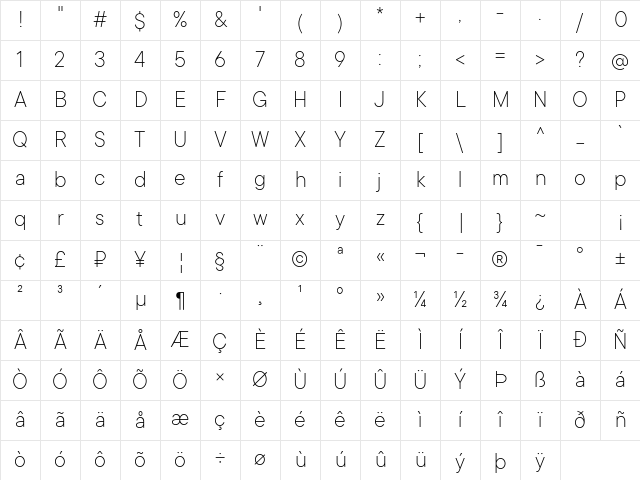
TT Commons ExtraLight Regular Free Font
TT Commons ExtraLight Regular
Designer: TypeType
Design Context for TT Commons ExtraLight
TT Commons ExtraLight is a composed and adaptable typeface that performs quietly and consistently across a wide range of design contexts. Its slender proportions lend an understated elegance to any composition.